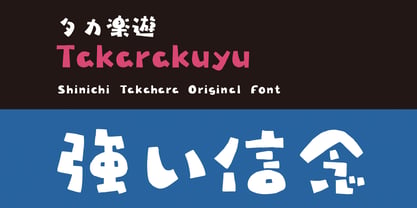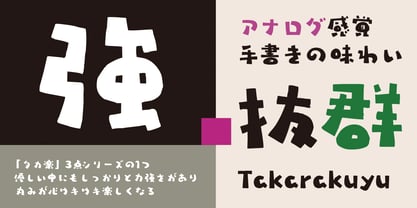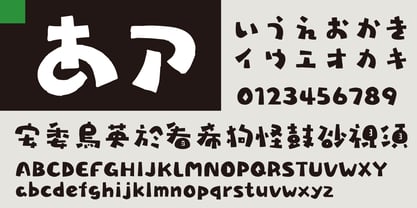
Takarakuyu
The Takarakuyu Font Family was designed by and published by Taka Design Production. Takarakuyu contains 1 styles. More about this family
This is one of the “Takaraku” 3 series. The strong and weak handwritten lines and the stable rounded corners on the inside make this typeface full of playful handwriting.